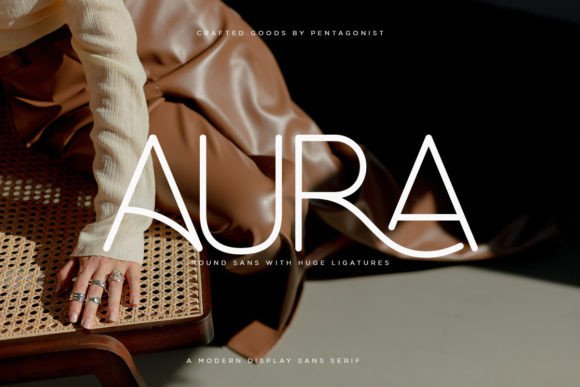
Looking for a modern and sleek sans-serif font to make your text stand out? Look no further than Aura Font from Pentagonistudio! This font is the perfect choice for anyone looking to add a touch of sophistication to their designs.
With its round characters and huge ligatures, Aura Font is both easy to read and visually captivating. Whether you're creating marketing materials, designing a website, or crafting the perfect social media post, Aura Font will help your message shine.
One of the best things about Aura Font is that it's PUA encoded, which means you can access all of the glyphs and swashes with ease. This makes it incredibly versatile and perfect for a wide range of design projects.